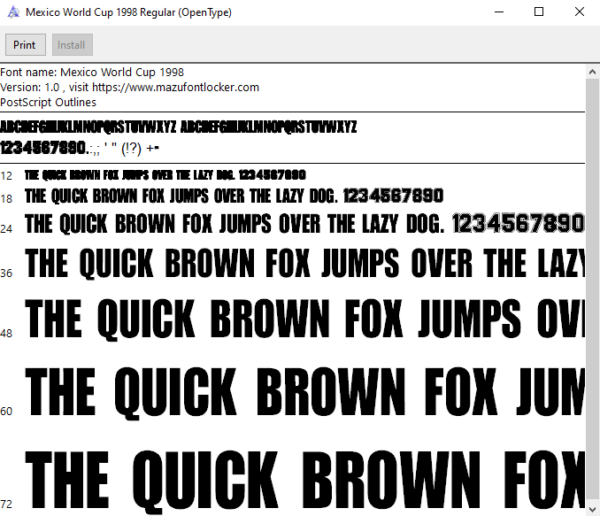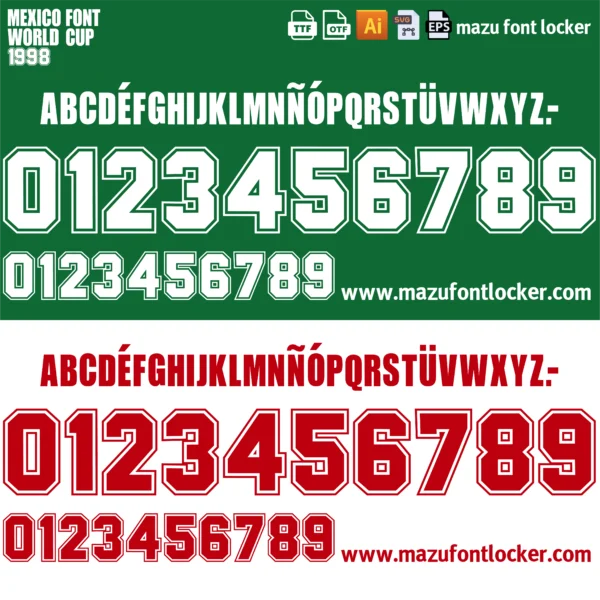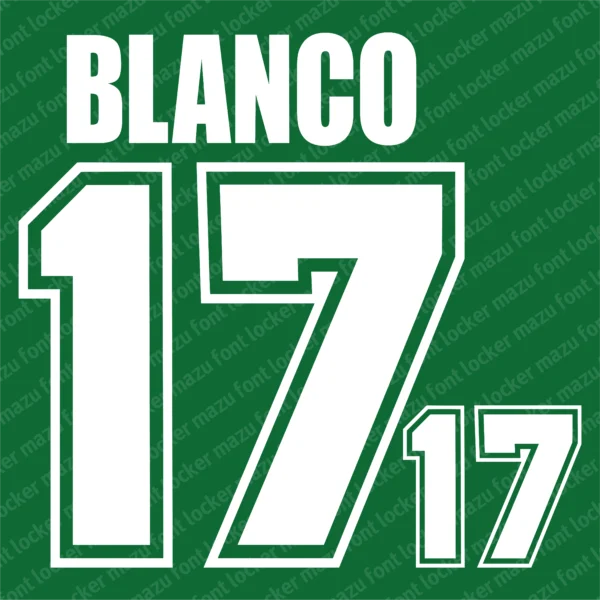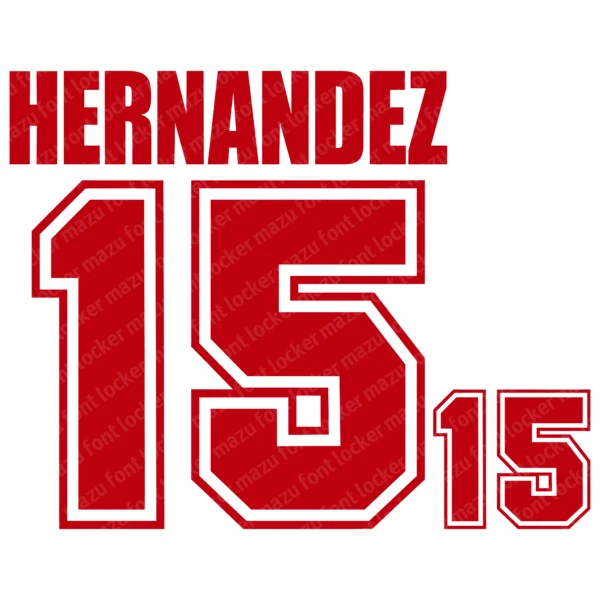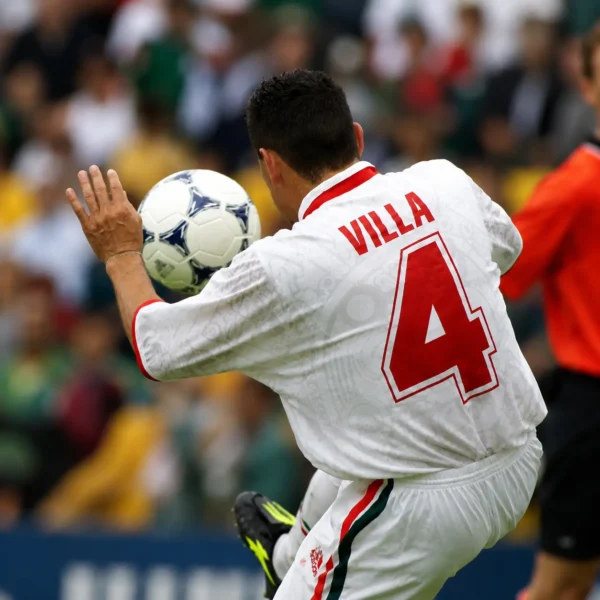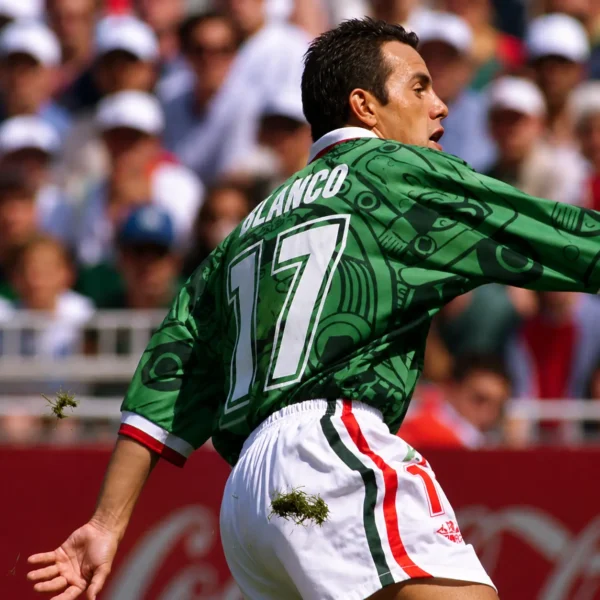
Mexico World Cup 1998 Font Vector – Epic Green & Red Mexican Masterpiece
Mexico World Cup 1998 Font – Authentic El Tri Typeface
The Mexico World Cup 1998 Font is a premium typeface that accurately recreates the official match lettering worn by the Mexico national team during the 1998 FIFA World Cup in France. This high-quality font kit captures the bold, vibrant, and iconic typography that represents one of the most memorable World Cup campaigns for El Tri.
Designed for professional designers and passionate Mexico fans, the Mexico World Cup 1998 Font delivers perfect authenticity for creating retro jersey mockups, fan merchandise, matchday posters, social media graphics, and much more. It blends beautifully with the team’s iconic green-and-white colors from that era.
Why Choose Mexico World Cup 1998 Font
This font stands out because of its sharp details and strong historical identity. Every letter and number is crafted to match the exact style used on the players’ shirts during the 1998 World Cup. Whether you are making realistic retro shirt templates or nostalgic football content, the Mexico World Cup 1998 Font gives your designs that authentic El Tri look.
The letterforms in the Mexico World Cup 1998 Font are tall, bold, and highly readable. The strokes have a strong and controlled weight that looks powerful on the back of jerseys while maintaining excellent clarity and classic elegance.
The numerals use bold curves and firm edges, giving them a confident and premium appearance. This design ensures great legibility whether used in large print formats, digital mockups, or video content.
• Full uppercase A–Z and numbers 0–9 in authentic Mexico 1998 style
• Special Mexico FMF crest glyph for accurate shirt number detailing
• Create highly realistic Mexico 1998 World Cup jersey mockups with accurate lettering
• Design stunning retro World Cup posters, score graphics, and squad announcements
• Produce custom El Tri merchandise with a classic football aesthetic
Mexico in the 1998 World Cup
The Mexico national team, famously known as El Tri, competed in the 1998 FIFA World Cup in France. Featuring stars such as Cuauhtémoc Blanco, Luis Hernández, Jorge Campos, and Ramón Ramírez, Mexico advanced to the Round of 16 but were eliminated by Germany. The 1998 campaign remains a nostalgic favorite among Mexican football fans. For the latest news and updates about the national team, visit the official Federación Mexicana de Fútbol (FMF) website.